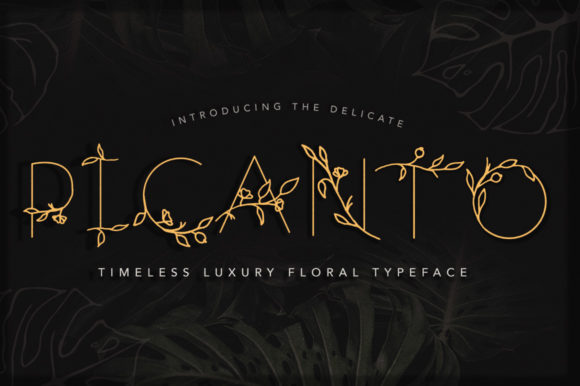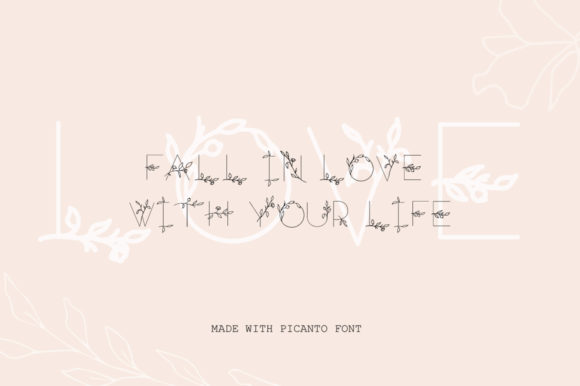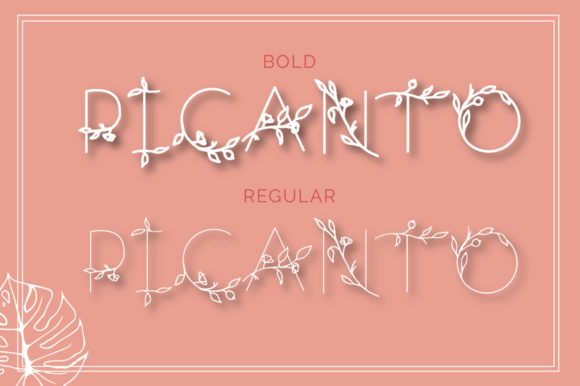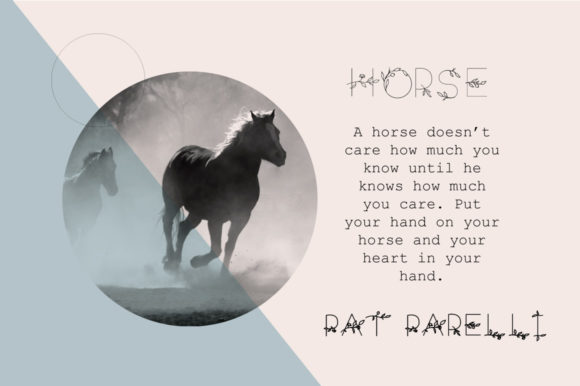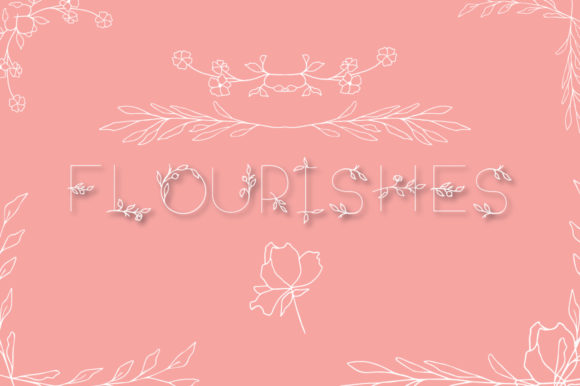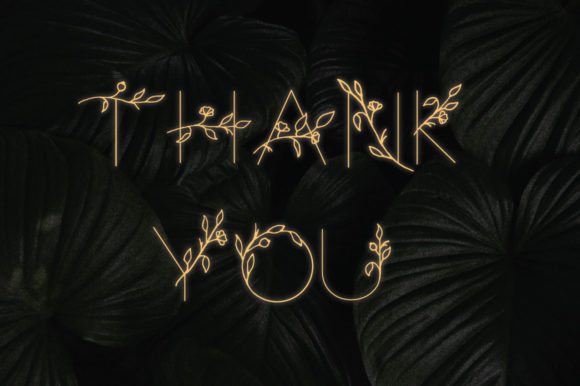
Picanto Font
About Picanto Font
The Picanto is an all caps floral font. It comes in a regular and bold version which can be used for logos, branding, wedding invitations, cosmetics packaging, and much more!